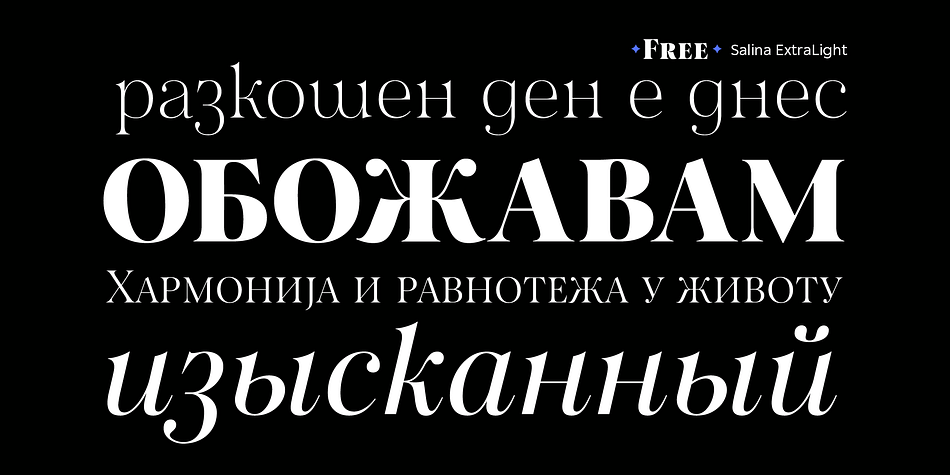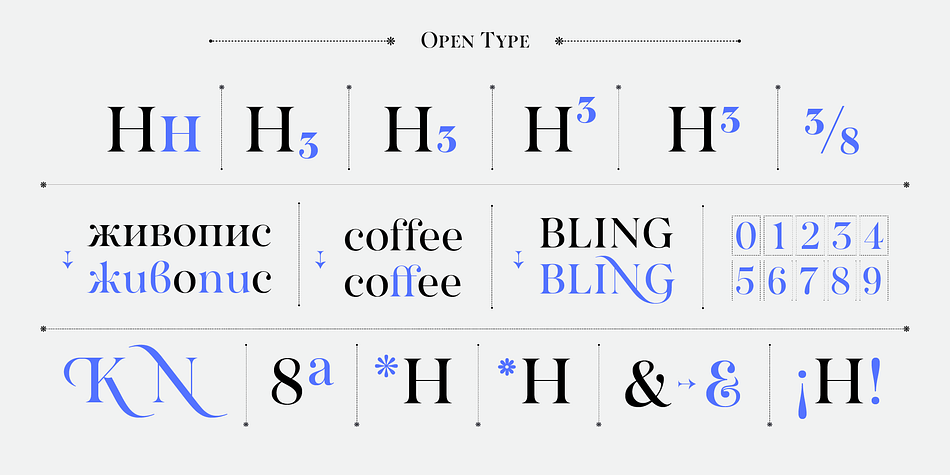
Salina
Designed by Ivelina Martinova, Plamen Motev and Viktoria Usmanova, Salina is a serif font family. This typeface has thirty-two styles and was published by Fontfabric.
Fontfabric presents the lovely Salina Font Family – a modern, high contrast transitional serif typeface that exudes a captivating blend of contemporary sophistication and timeless elegance.
Born under the skillful hands of Ivelina Martinova and with the support of Plamen Motev and Vika Usmanova, the graceful Salina is here to make a lasting impression. Salina’s defining characteristic is the striking contrast between thick and thin strokes, smooth graceful ovals, round ball terminals and sharp bracketed serifs delivering a strong visual impact.
All of these qualities make the font ideal for designers seeking to create refined, visually striking compositions that just leave an impression. One of elegance, sophistication and exclusivity.
One of Salina.